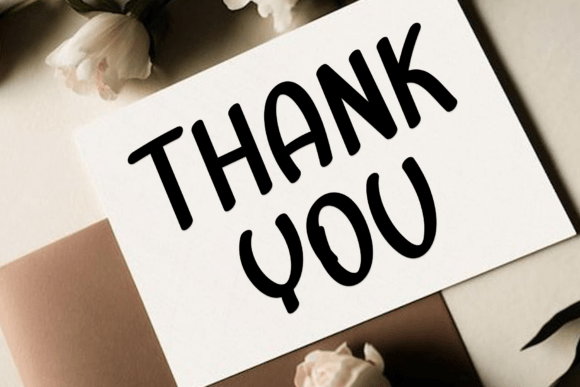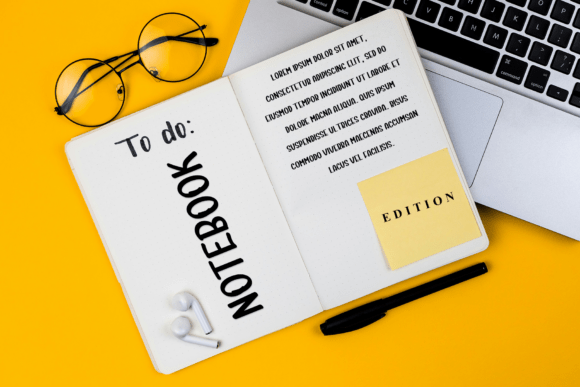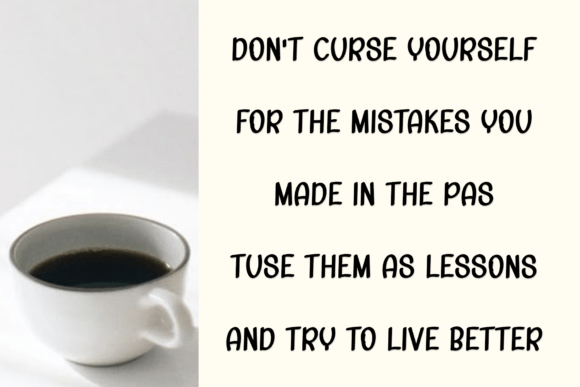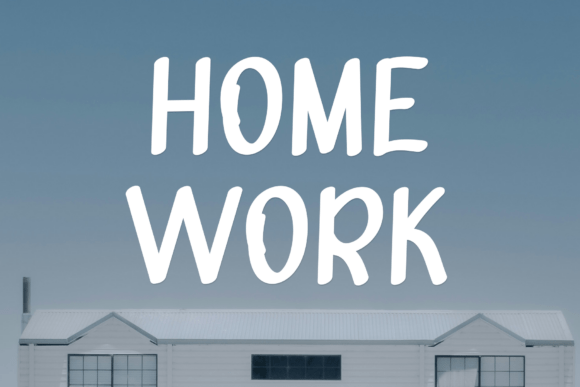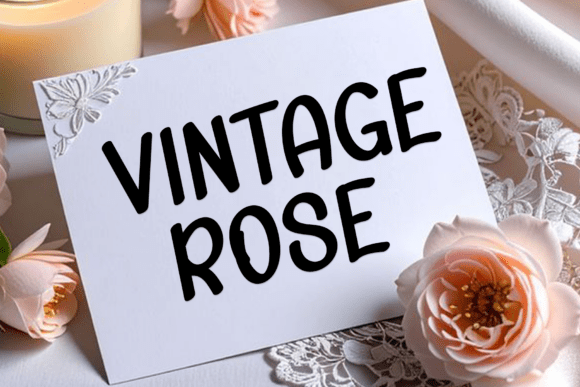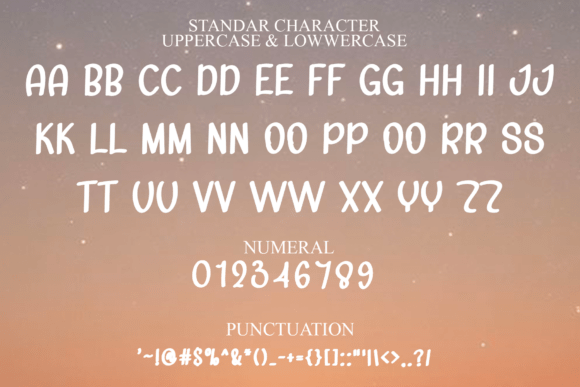
Introducing Birthday Wednesday Font: The Ultimate Holiday Typeface
The holiday season is upon us, and what better way to get into the spirit than with a festive and merry typeface? Look no further than the Birthday Wednesday Font, a decorative and whimsical font that’s perfect for adding a touch of enchantment to your designs. In this article, we’ll dive into the world of Birthday Wednesday Font and explore its features, benefits, and uses.
Birthday Wednesday Font is a carefully crafted typeface that captures the essence of the holiday season. Its decorative elements and whimsical flair make it an ideal choice for designers and crafters looking to add a touch of magic to their projects. Whether you’re creating greeting cards, gift tags, or holiday-themed projects, this font is sure to bring a cheerful and nostalgic ambiance to your words.
So, what makes Birthday Wednesday Font so special? For starters, its festive and merry design makes it perfect for a wide range of holiday projects. Imagine creating a beautiful Christmas card with a personalized message, or a set of gift tags that add a touch of whimsy to your presents. With Birthday Wednesday Font, you can add a dash of holiday cheer to any project, making it a must-have for designers and crafters.
One of the best things about Birthday Wednesday Font is that it’s PUA (Private Use Area) encoded. This means that you can access all of the amazing glyphs and ligatures with ease, giving you complete creative control over your designs. With PUA encoding, you can easily insert special characters, such as snowflakes, holly leaves, and other festive symbols, to add an extra touch of magic to your projects.
What Can I Use Birthday Wednesday Font For?
The possibilities are endless with Birthday Wednesday Font! Here are just a few ideas to get you started:
- Greeting cards: Create beautiful and personalized greeting cards for Christmas, Hanukkah, or any other holiday.
- Gift tags: Add a touch of whimsy to your gifts with custom gift tags that feature the Birthday Wednesday Font.
- Holiday-themed projects: Use the font to create festive and merry projects, such as holiday-themed posters, flyers, or social media graphics.
- Stationery: Add a touch of holiday cheer to your stationery, such as notebooks, journals, or letterheads.
Why Choose Birthday Wednesday Font?
So, why choose Birthday Wednesday Font over other holiday typefaces? Here are just a few reasons:
- Unique design: The font features a unique and whimsical design that’s sure to stand out from the crowd.
- Easy to use: With PUA encoding, you can easily access all of the font’s glyphs and ligatures.
- Versatile: The font is perfect for a wide range of holiday projects, from greeting cards to gift tags.
- High-quality: The font is carefully crafted to ensure that it’s of the highest quality, with clear and crisp lines.
In conclusion, Birthday Wednesday Font is a must-have for designers and crafters looking to add a touch of holiday cheer to their projects. With its festive and merry design, PUA encoding, and versatility, this font is perfect for a wide range of holiday projects. Whether you’re creating greeting cards, gift tags, or holiday-themed projects, Birthday Wednesday Font is sure to bring a cheerful and nostalgic ambiance to your words. So why wait? Download Birthday Wednesday Font today and let your typography shine with the magic of Beautiful Font!